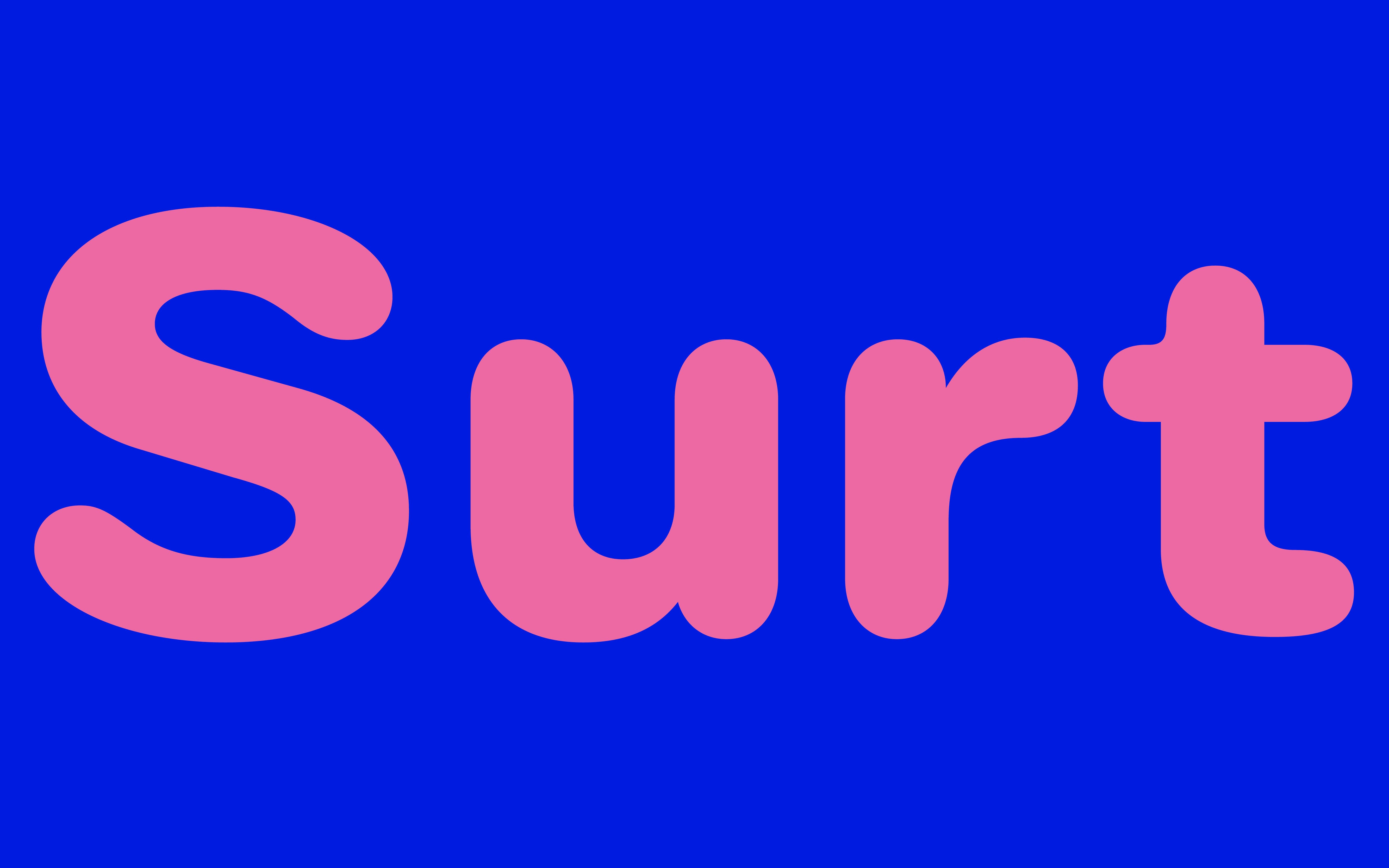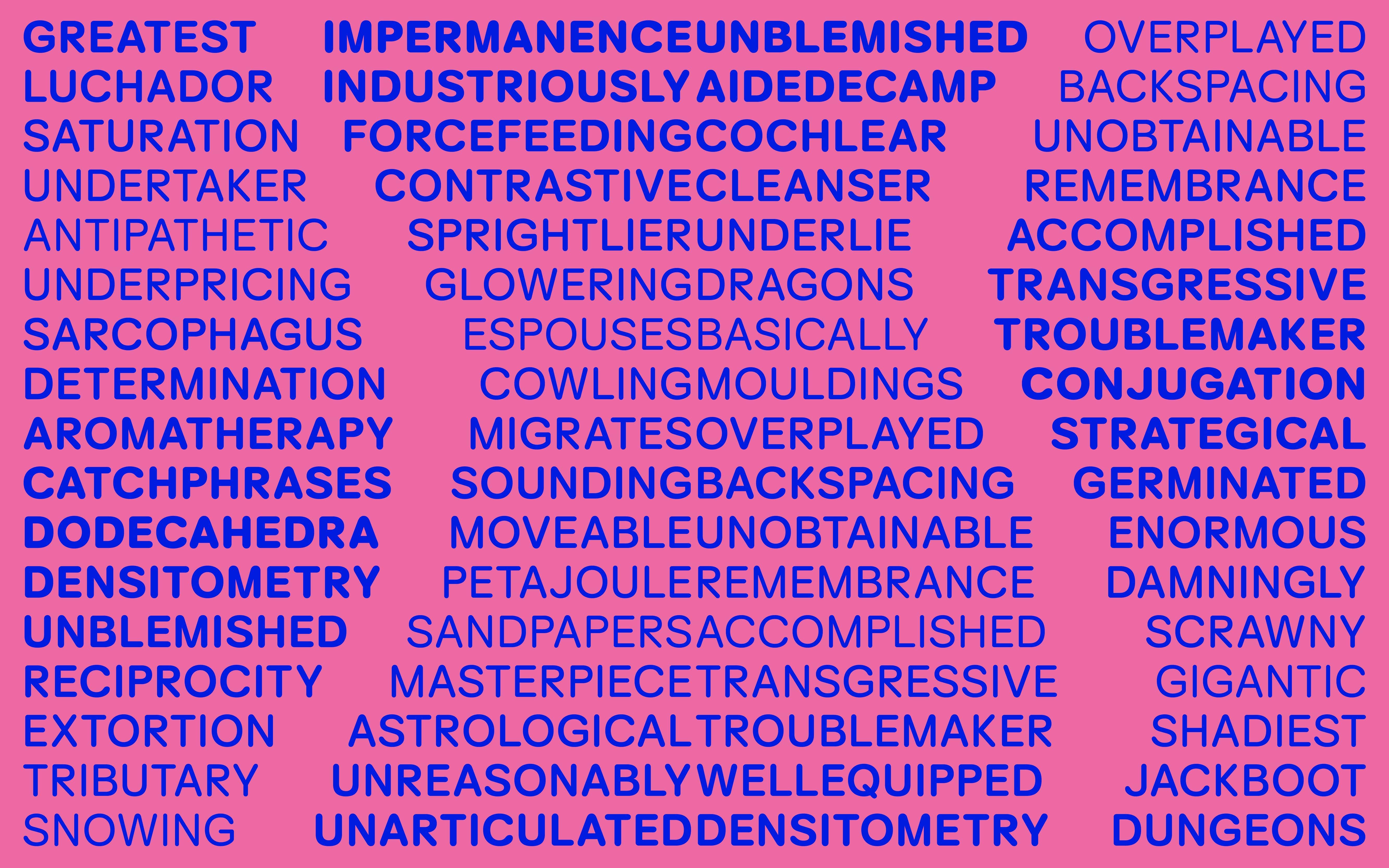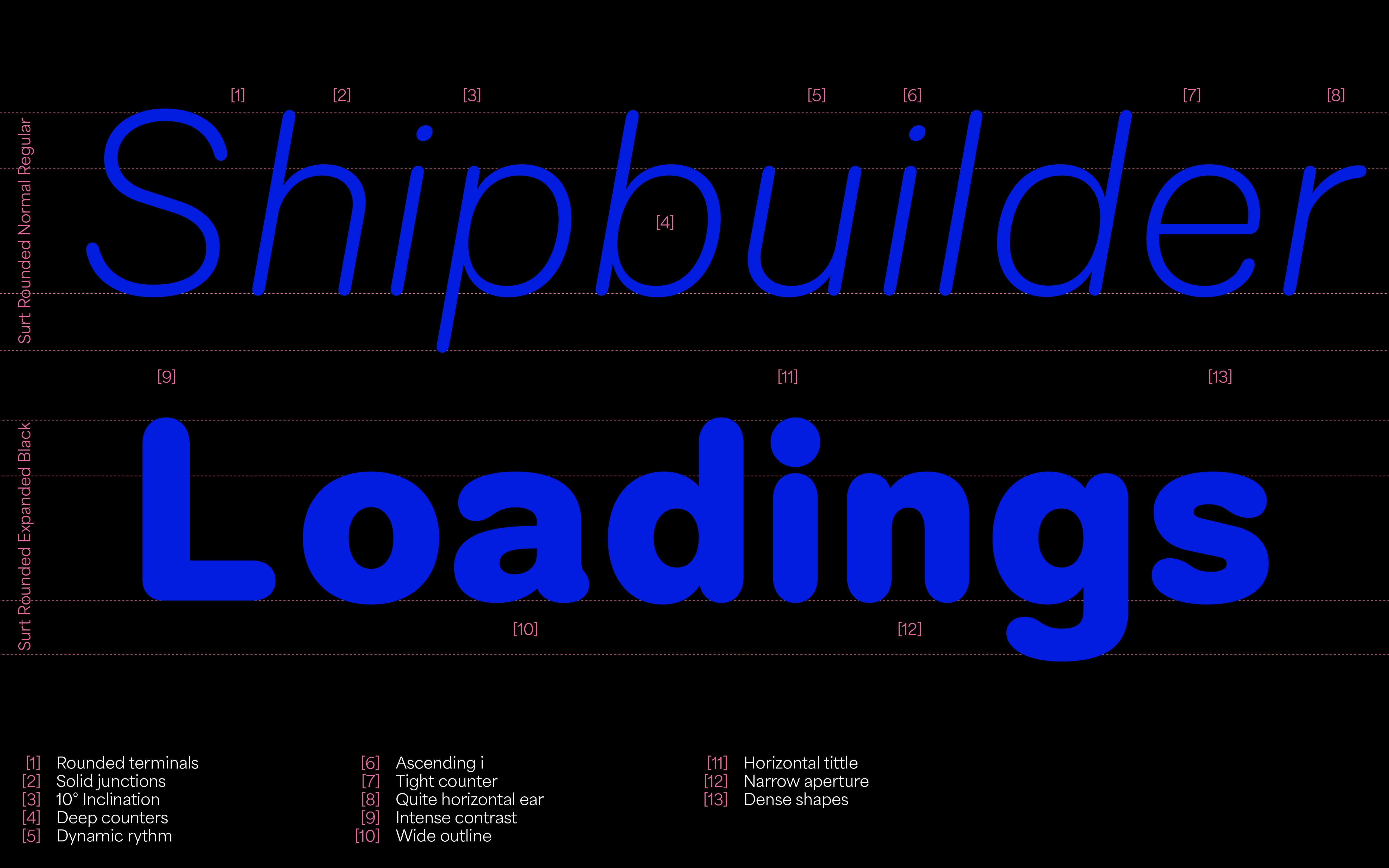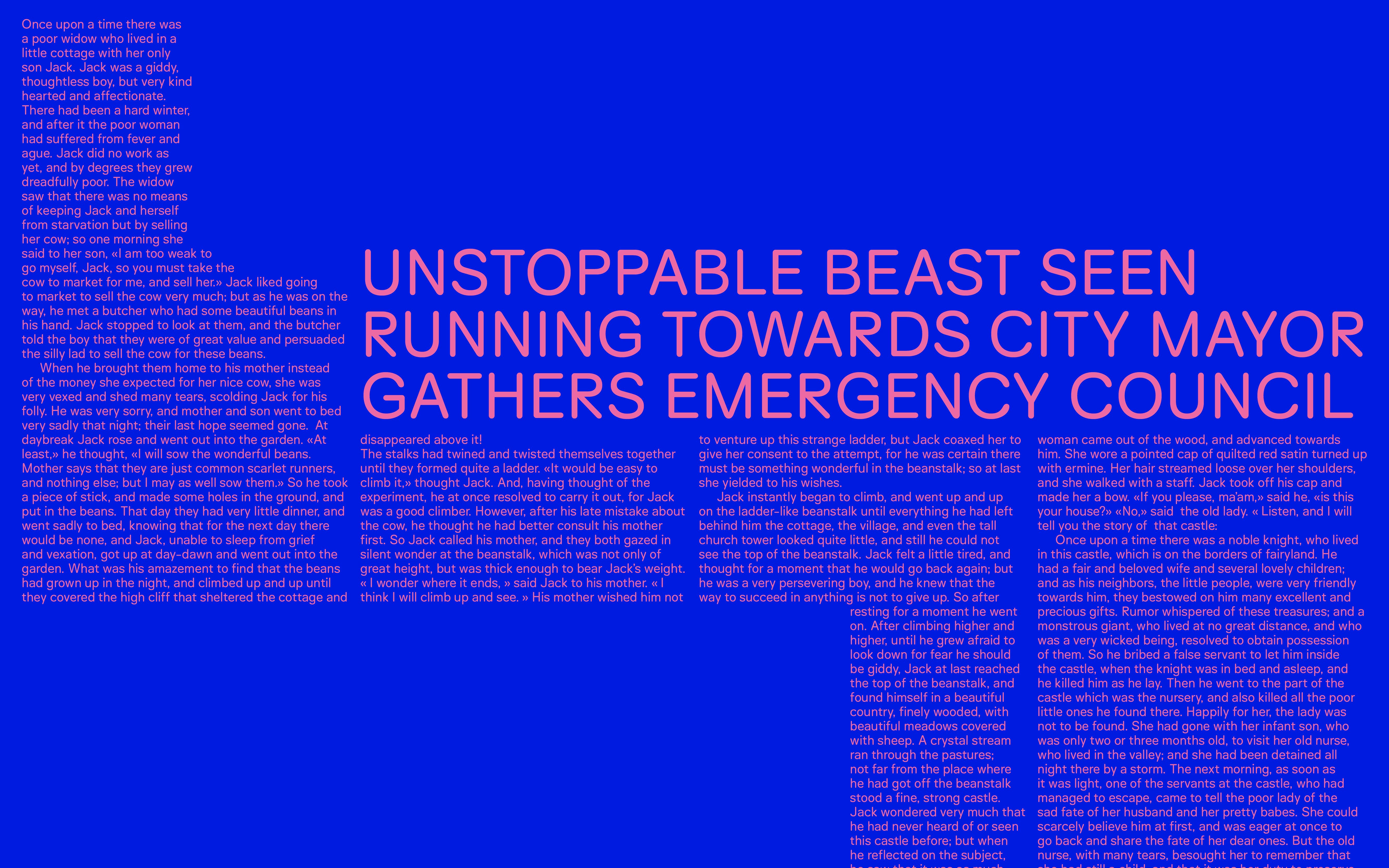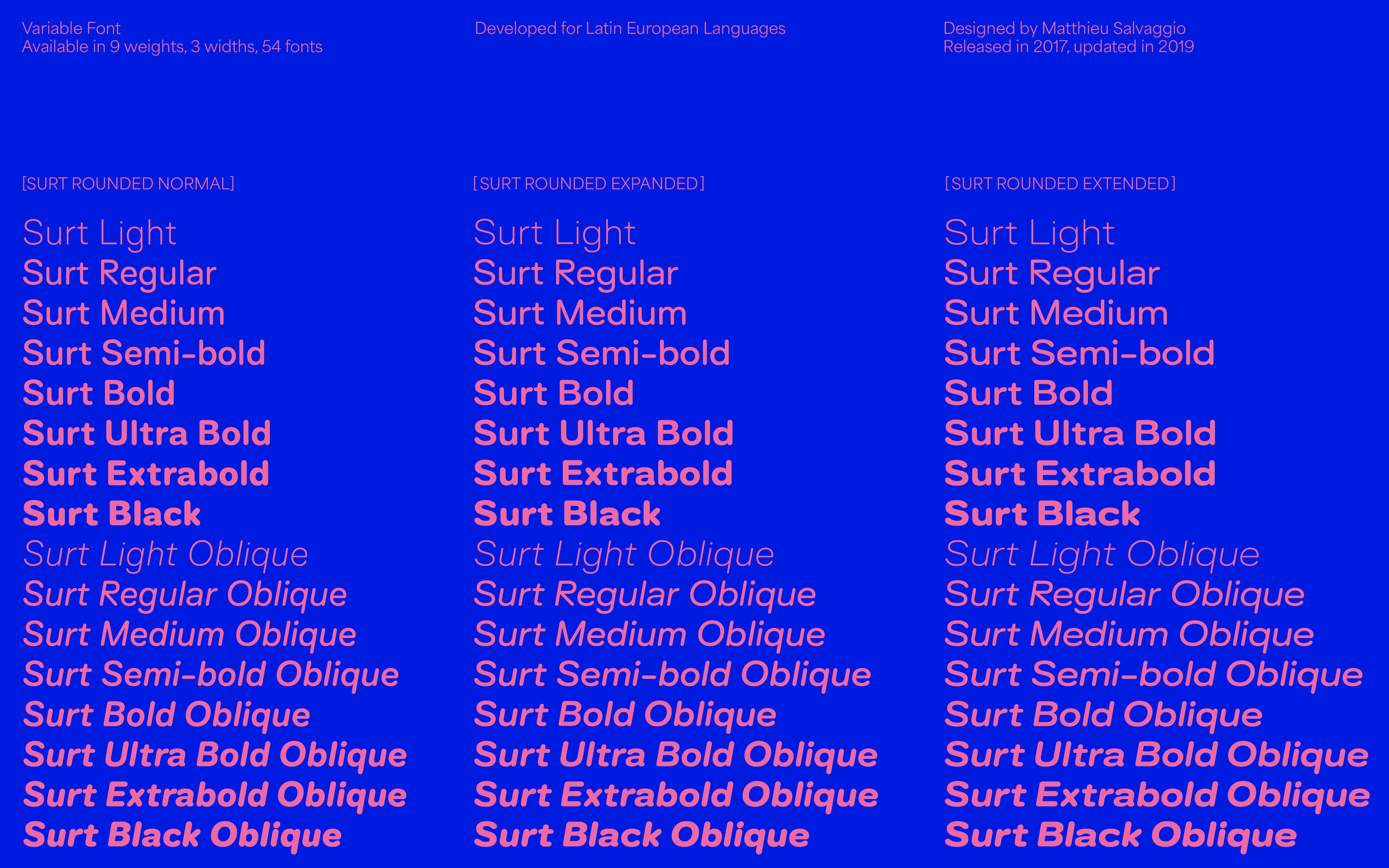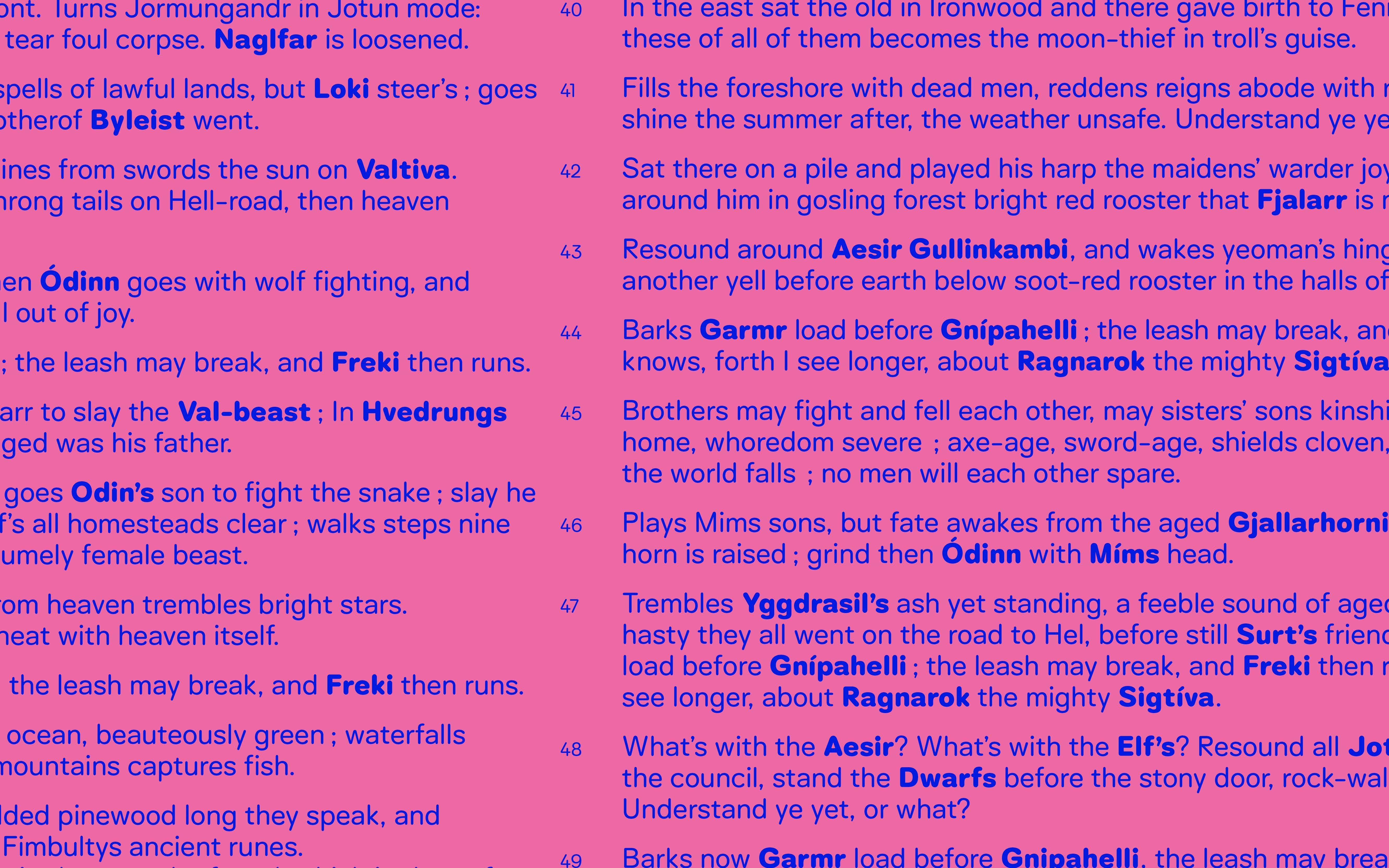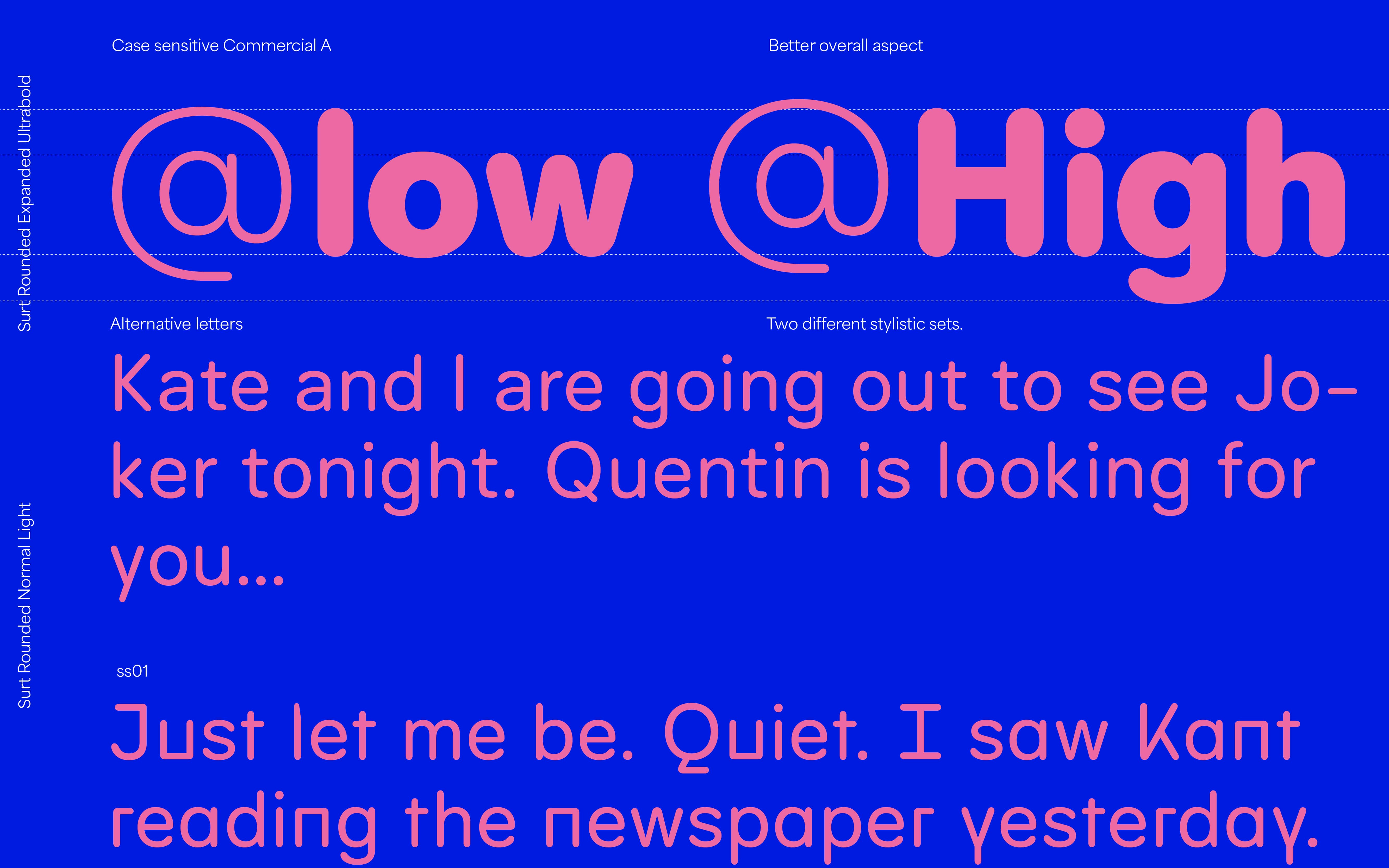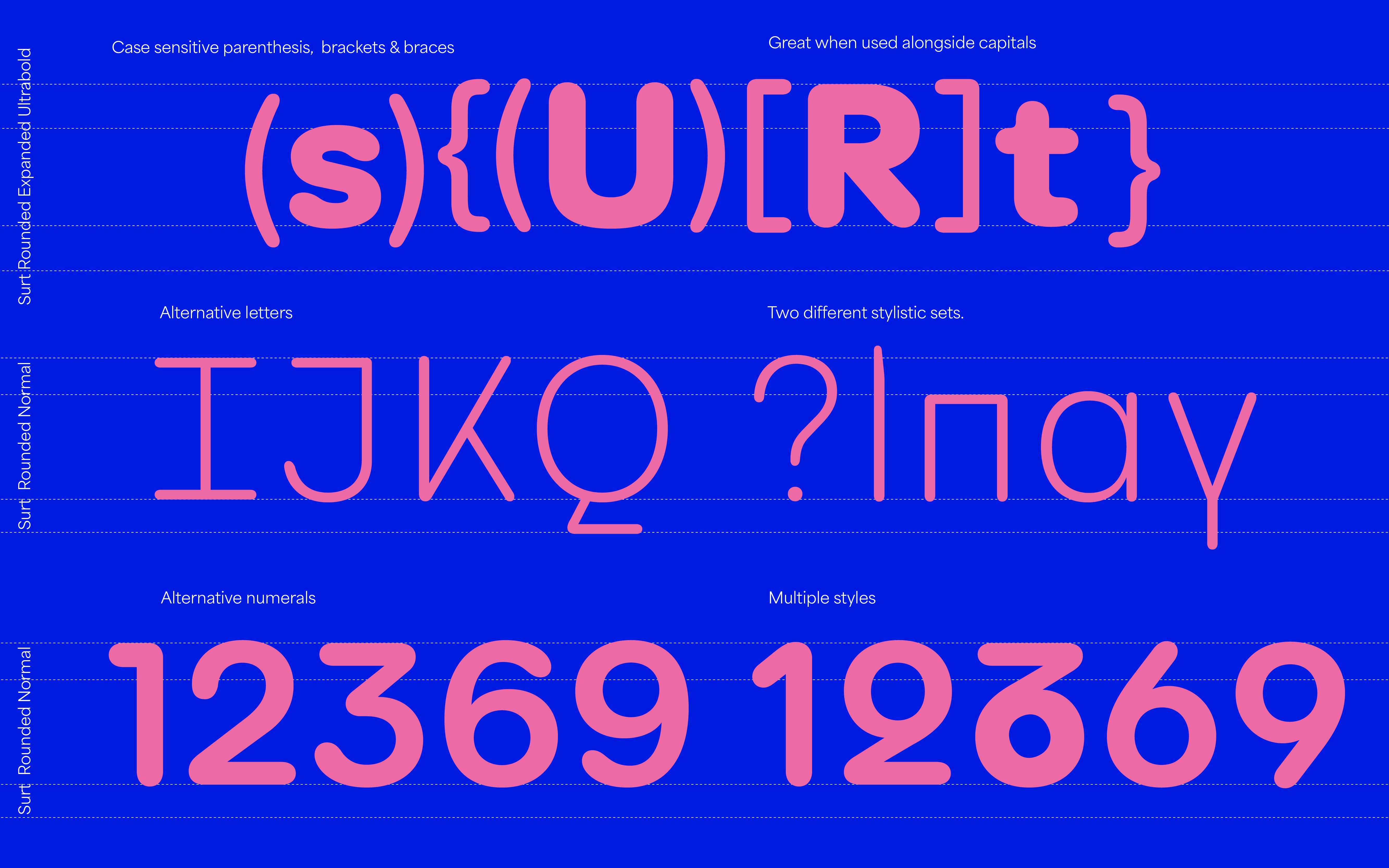
Surt Rounded
This is the Rounded version of Surt, the Norse inspired font family. While the Rounded version brings a more "playful" aspect to the font, Surt and its strong structure in a circular kind of terminal endings still bring some toughness to any layout.
This typeface family, inspired by Norse mythology and Scandinavian Architecture, draws a bridge between a geometric sans and a human process in the whole shape design. Surt Rounded's Norse-like character set will allow text layouts to have this unusual corkiness which make it so particular and so comfortable to read. The rounded Norse inspired glyphs’ width are shaped in such a way that they operate a discrete rupture in the text rhythmic. Surt also draws inspiration in geometrical shapes found in geometric fonts.
While the history of geometric fonts can be traced back to the early days of the modernist movement in the early twentieth century. Surt's inspiration is more contemporary and in link to strong brutalist architecture than historical geometric or even neo grotesque like fonts.